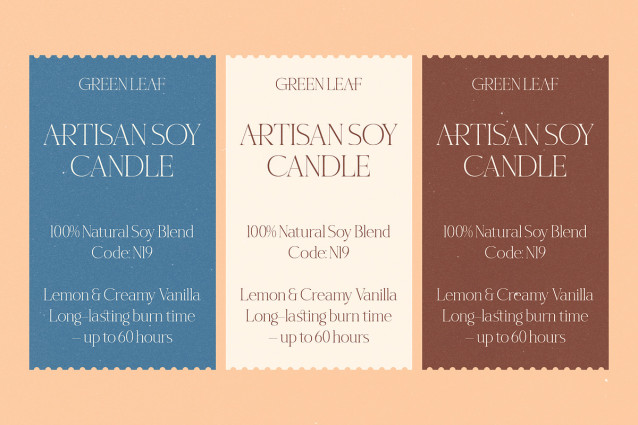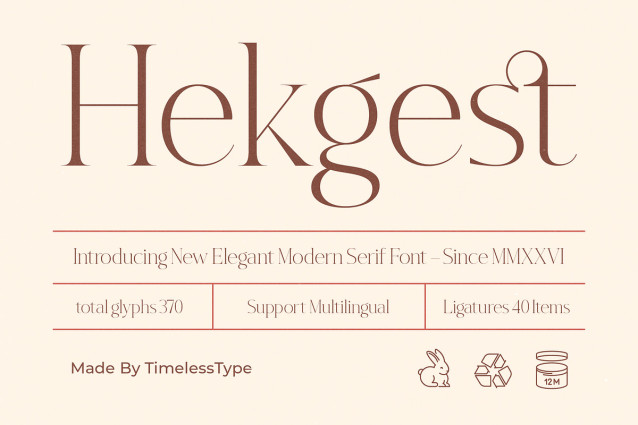
Hekgest Font
Hekgest Font a seamless blend of classic sophistication and contemporary flair. This Hekgest typeface is crafted for designers seeking a refined aesthetic that transcends time and commands attention.Drawing inspiration from the golden age of high-fashion magazines and classic European architecture, this font captures a sense of balanced luxury. The delicate hairline strokes contrasted with bold stems evoke an atmosphere of pure, unfiltered grace and architectural precision.With its modern serif display qualities, this typeface offers an unparalleled luxury typography experience for high-end projects. The high-contrast serif design ensures a striking editorial font presence, delivering a powerful branding impact in every character.Perfectly aligned with the current modern serif trend, this typeface fulfills the growing demand for editorial display fonts in digital and print media. Its unique personality makes it a standout choice in the world of character-driven typography where every letterform tells a story.This versatile font is the ultimate tool for logo design, sophisticated branding, and high-end editorial layouts. It excels in luxury packaging, romantic wedding stationery, and avant-garde fashion campaigns that require a touch of class.The font package is rich with artistic ligatures and creative alternates to enhance your layout’s flow and visual interest. It also includes comprehensive multilingual support and a wide array of international characters for global versatility and ease of use.